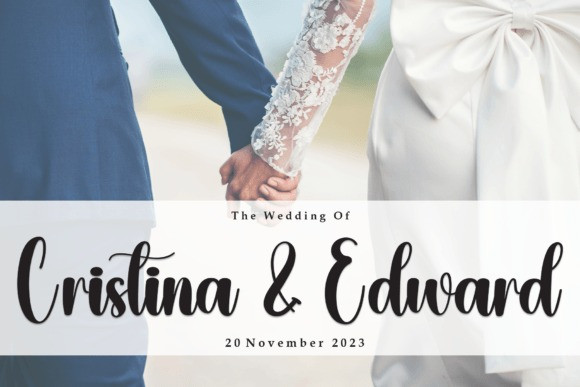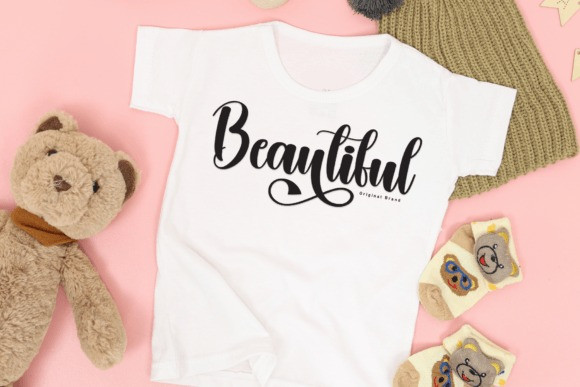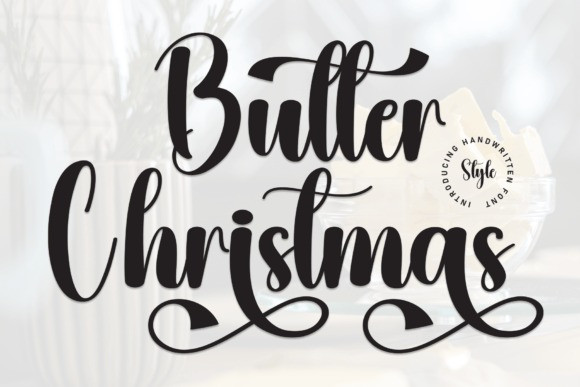
Butter Christmas Typeface
Butter Christmas Typeface is an enchanting handwritten font. This versatile script font has a wide spectrum of applications ranging from greeting cards to headlines and is guaranteed to add a romantic feel to your next project.